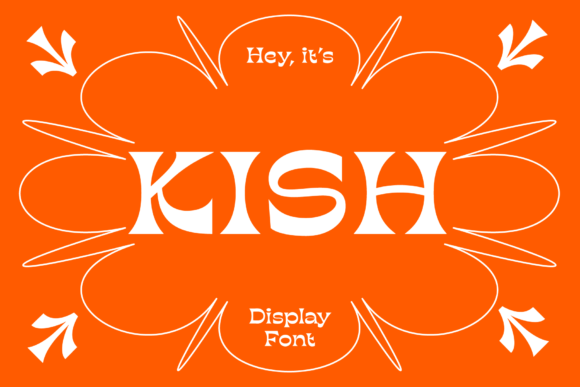
Unleash your creativity with Kish Font, a captivating display font that fuses the charm of the 1970s with the boldness of the Wild West. This extraordinary font, brainchild of the talented That That Creative, will transform your designs into masterpieces. With its striking reverse contrast, Kish Font guarantees a visual impact that's impossible to ignore.
Kish Font's uniqueness lies in its ability to evoke emotions and make statements. Whether you're crafting logos, posters, or social media graphics, this font will add a touch of sophistication and playfulness to your creations. Its distinct character shines through, demanding attention and leaving a lasting impression.
Imagine stepping into a world where fonts take on a life of their own, where letters dance and play, creating a symphony of visual delight. Kish Font opens the door to this realm, empowering you to weave stories and evoke emotions through the written word. Unleash your imagination and let your creativity soar as you witness the transformation of ordinary designs into captivating works of art.
With Kish Font, you'll discover a font that doesn't just occupy space; it commands it. Its bold presence grabs attention, while its subtle nuances add depth and intrigue. Whether you're a seasoned designer or just starting, Kish Font is your gateway to creating designs that resonate and captivate.
Don't settle for ordinary fonts that blend into the background. Embrace Kish Font's unconventional charm and elevate your designs to new heights. Dare to be different, to stand out from the crowd, and to leave an unforgettable mark with every project you undertake. Kish Font is your secret weapon, propelling your creativity to dazzling new horizons.